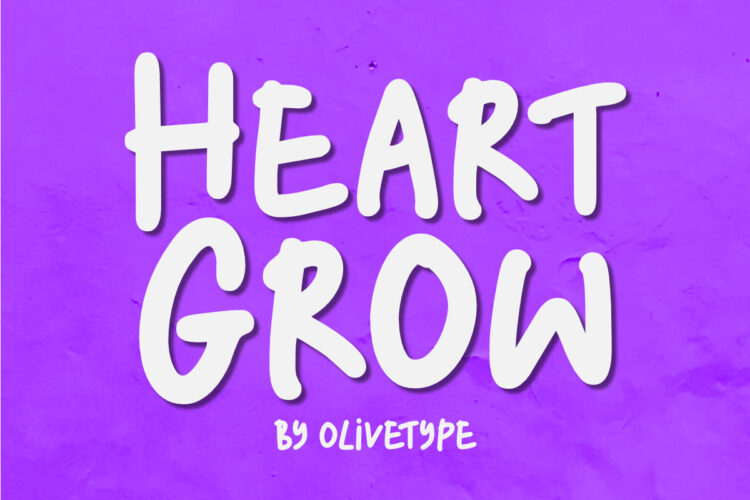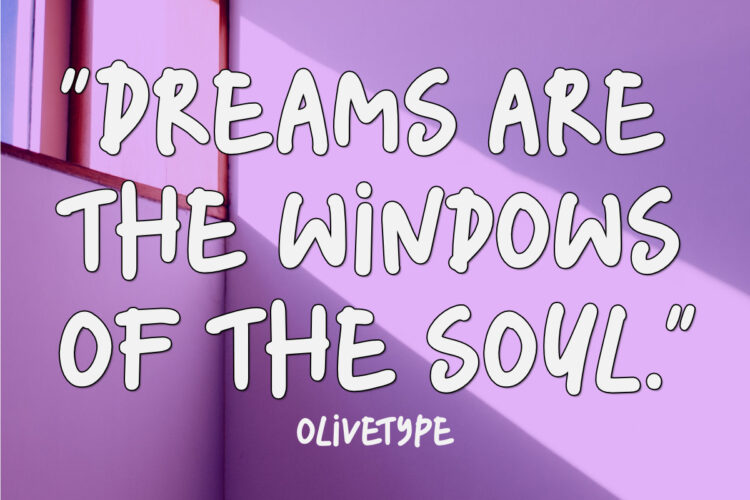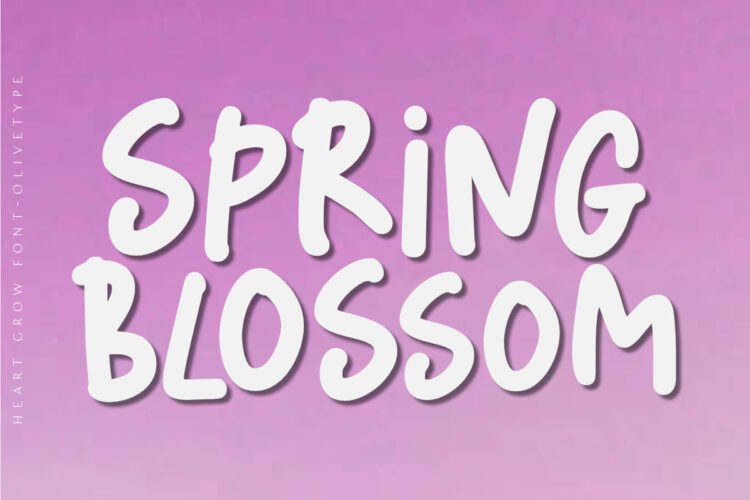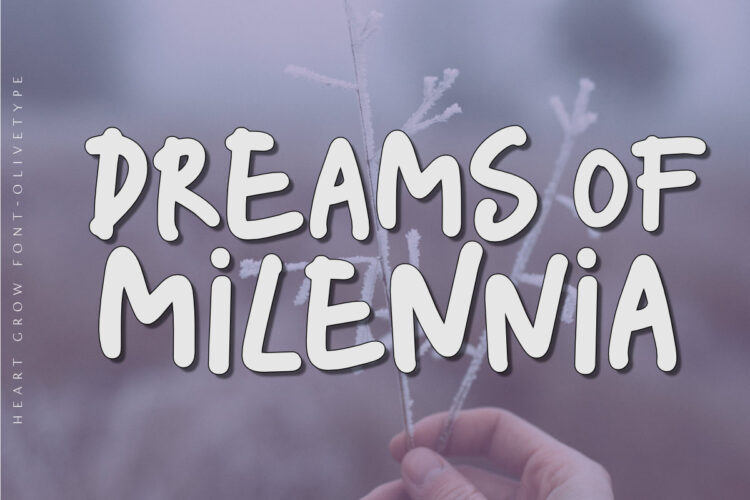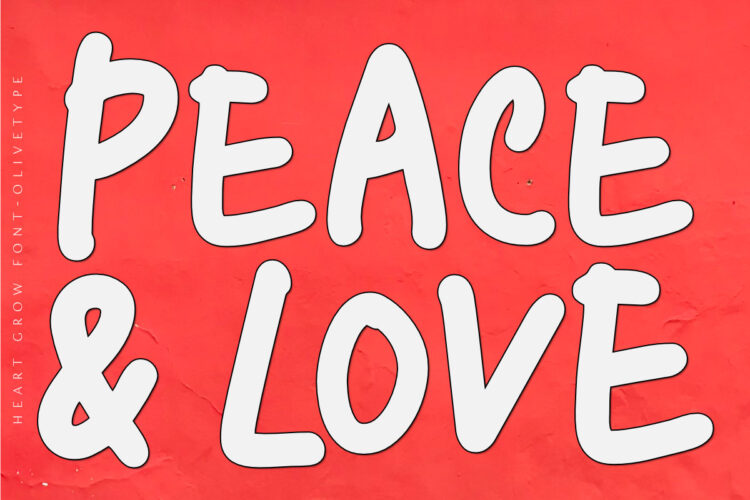
Love is in the air—or at least it should be! Get that perfect, happy feeling with Heart Grow. This font is great for adding some personality to all your occasions, making it perfect for logos, cards, labels, and more.